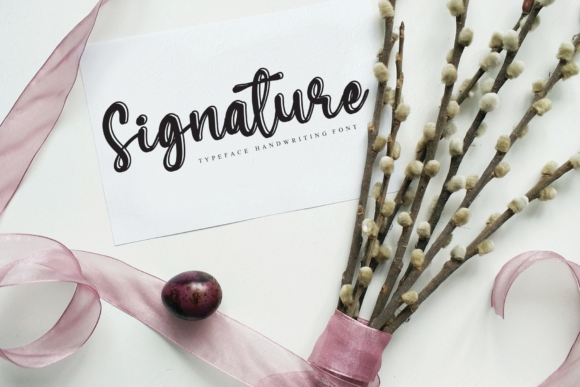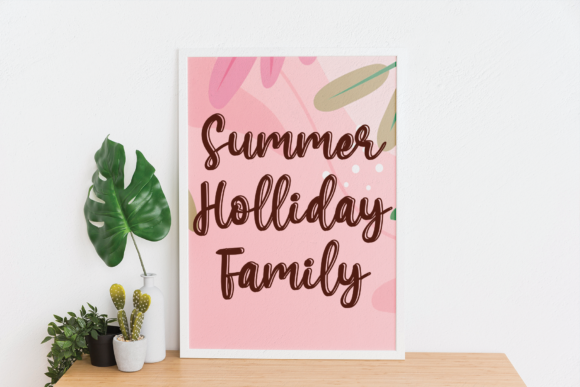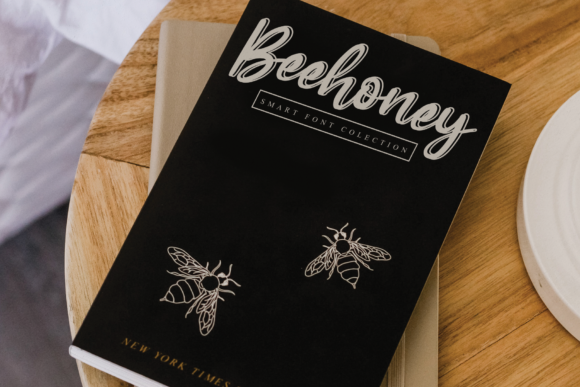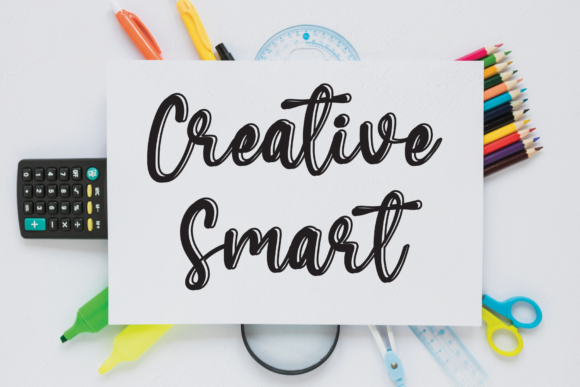
Creating Magic with the Perfect Font
Have you ever found yourself lost in a sea of design ideas, searching for that one special element to bring everything together? It’s a feeling designers know all too well – the thrill of the hunt for the perfect font to elevate your project. And then, suddenly, it happens: you stumble upon a font that captures the essence of your vision, and everything falls into place.
Meet Hello Holliday Font, a sweet and cursive handwritten font designed to add a touch of joy and romance to your designs. With its gentle, flowing lines, Hello Holliday Font is the perfect companion for any creative project, from wedding invitations to greeting cards and more.
For designers, Hello Holliday Font is a valuable asset that can take your projects from ordinary to extraordinary. Its versatility and charm make it a go-to choice for adding a personal touch to any design, and its beauty is sure to leave a lasting impression on your audience.
- Unique Characteristics: This font features a playful, handwritten style with swashes and flourishes, ideal for creating a festive and elegant look.
Hello Holiday Font Review
Overall, I think the Hello Holiday font is a beautiful addition to any design project. ✨ Its unique blend of elegance and playfulness makes it perfect for holiday-themed designs, but it also works well for other seasonal or celebratory projects.
- The font’s whimsical feel is sure to grab attention and create a sense of excitement.
- It’s incredibly versatile, working well in both digital and print applications.
- The font’s bold, cursive lines make it perfect for headings and titles.
- The font includes a range of punctuation and symbol options, making it easy to use in a variety of contexts.
- ⚠️ The font may be too bold or overwhelming for certain designs, such as those that require a more subtle or minimalist aesthetic.
- ⚠️ The font’s cursive lines can be difficult to read at small sizes or in certain font sizes.
- ⚠️ There are limited language support options, which may limit the font’s use in multilingual designs.
Overall, I think the Hello Holiday font is a great choice for designers who want to add a touch of whimsy and personality to their projects. While it may have some limitations, its unique feel and versatility make it a valuable addition to any design library.
The “Hello Holiday Font” is perfect for:
- Creating festive holiday graphics and designs.
- Adding a touch of whimsy to your branding and marketing materials.
- Designing greeting cards, invitations, and other holiday-themed items.
To get the most out of the “Hello Holiday Font”, try:
- Pairing it with bold, bright colors to create a festive look.
- Using it in combination with other festive fonts for a fun, playful feel.
- Experimenting with different font sizes and styles
Alternatives to “Hello Holliday Font” for Designers
Great Vibes is a modern, cursive script font perfect for creating a friendly and approachable atmosphere. It’s ideal for use in headings, titles, and invitations. Great Vibes has a similar feel to Hello Holliday Font, but with a more refined and elegant touch.
Crimson Text is a serif font with a classic and sophisticated look. It’s suitable for use in body text, headings, and titles, particularly in formal or professional contexts. Compared to Hello Holliday Font, Crimson Text is more formal and less playful, but still conveys a sense of elegance.
Playfair Display is a luxurious, high-end font perfect for use in headings, titles, and luxury branding. It has a similar level of sophistication to Hello Holliday Font, but with a more dramatic and opulent feel. Playfair Display is ideal for use in high-end fashion, jewelry, or luxury goods branding.
Bellota Font
Bellota is a modern, sans-serif font with a friendly and approachable feel. It’s suitable for use in headings, titles, and body text, particularly in informal or casual contexts. Compared to Hello Holliday Font, Bellota is more modern and less ornate, but still conveys a sense of friendliness and approachability.